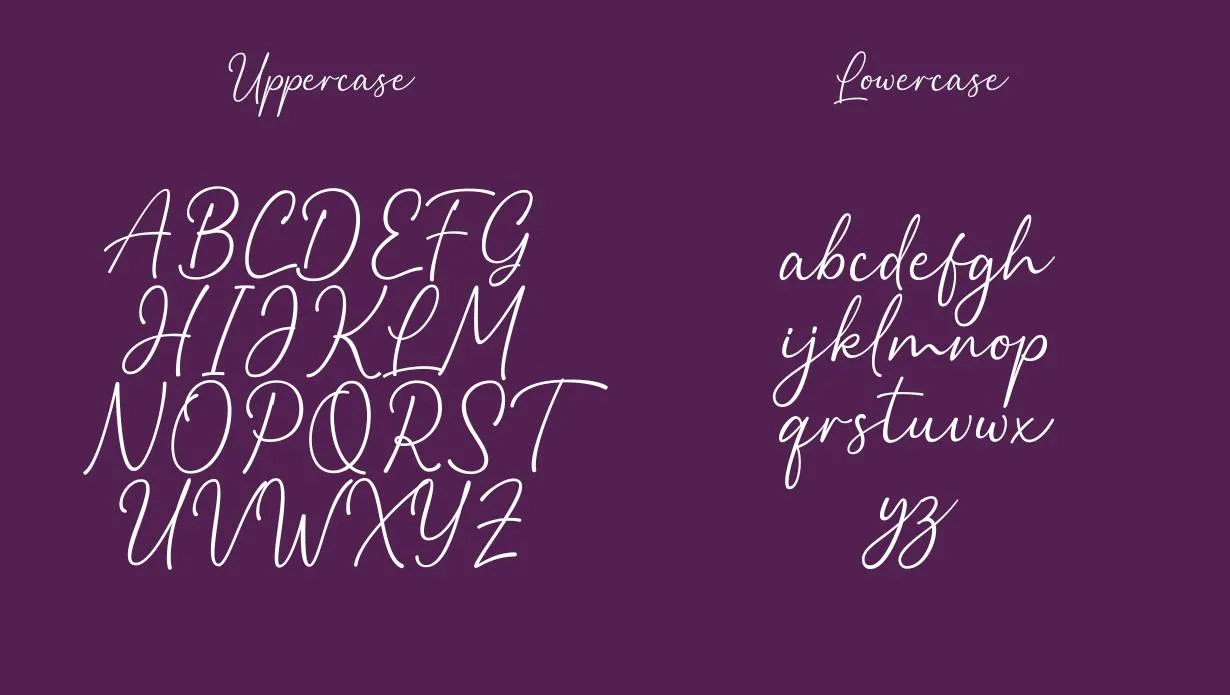
Balista Font is an elegant typeface with thin strokes. You can utilize this amazing typeface for various projects and assignments this remarkable typeface is designed by a well-reputed Indonesian typographer Teguh Subiyantoro and declared by subystudio.
- Balista Regular
| Name | Balista Font |
| Designer | Teguh Subiyantoro |